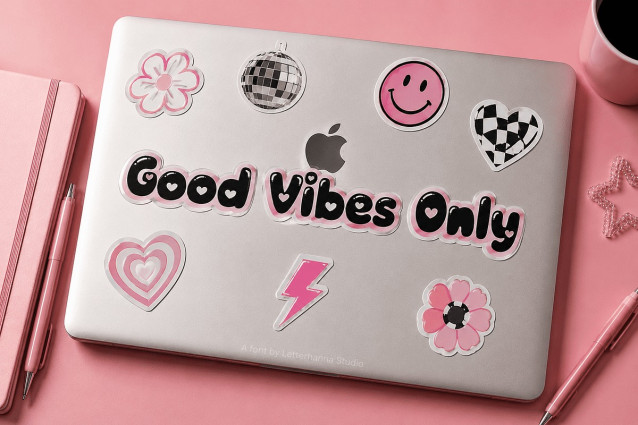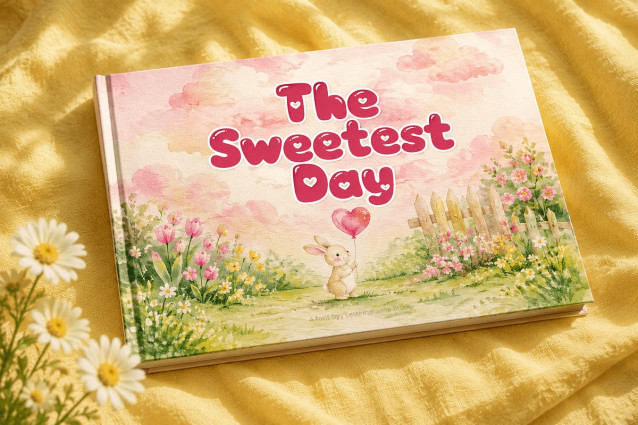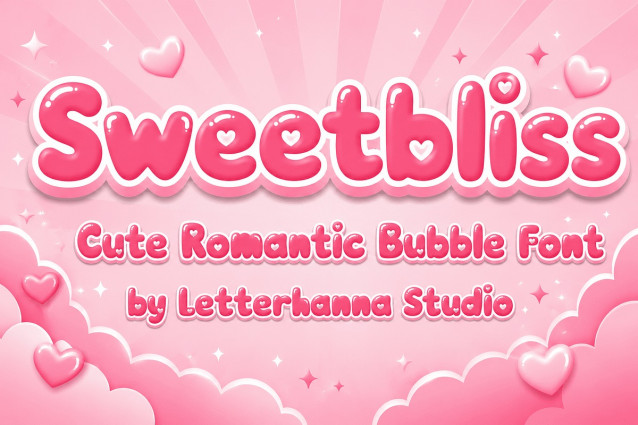
Sweetbliss Font— a font born from a single, honest obsession: making letters feel like a warm hug.
Sweetbliss started as a sketch on a quiet afternoon, somewhere between a doodle and a dream. The idea was simple — take the softness of bubble letters, strip away the generic, and inject something deeply personal: tiny heart cutouts hidden inside each letterform, like a love note written in the architecture of the alphabet itself.
Every curve was drawn to feel pillowy, intentional, and full of character. The result is a font that doesn’t just display words — it communicates emotion. Whether you’re designing a wedding invitation, a baby shower card, a sticker sheet, a Valentine’s Day campaign, or a self-care brand identity, Sweetbliss brings that irresistible “aww” factor that makes people stop scrolling and start feeling.